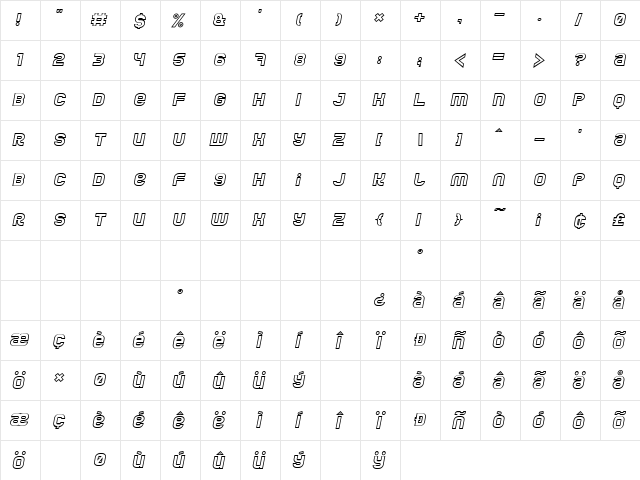
Jumbo Outline Italic
Design Context for Jumbo Outline Typeface
Jumbo Outline is built around its visual character rather than neutral utility — its distinctive forms are designed to make an impression at display sizes. The dynamic lean of this cut emphasises speed and emphasis in any layout.
Font Pairing: Pair with a clean neutral sans-serif for body copy to let Jumbo Outline's character lead without overwhelming the composition.
Pro Tip: Treat Jumbo Outline as the centrepiece of your typographic hierarchy. One strong heading set in a decorative face can carry an entire layout.